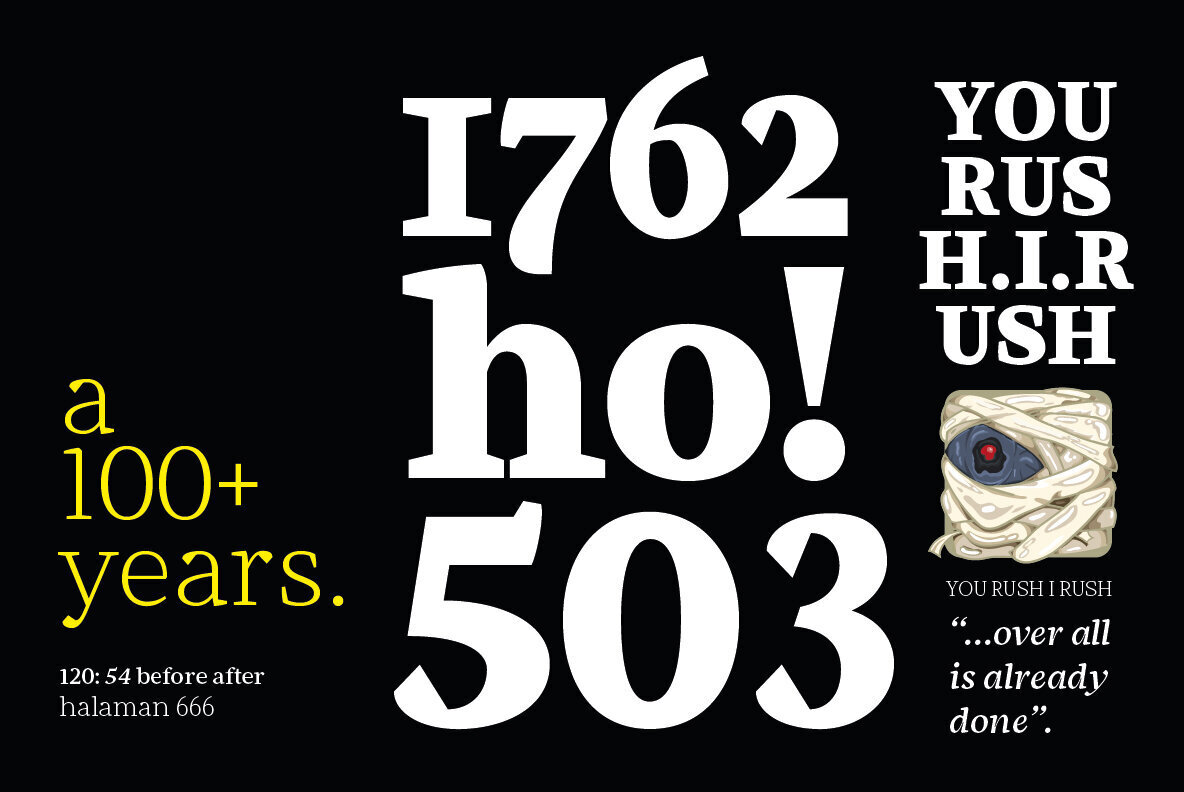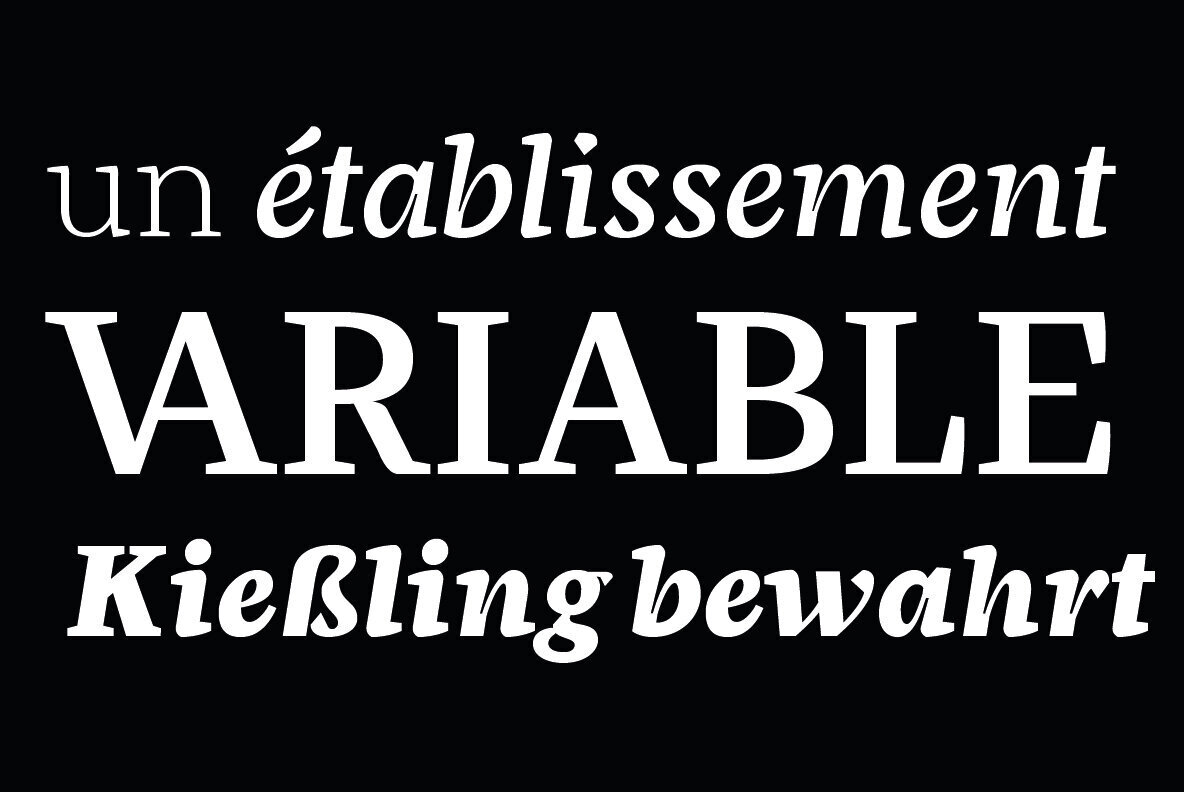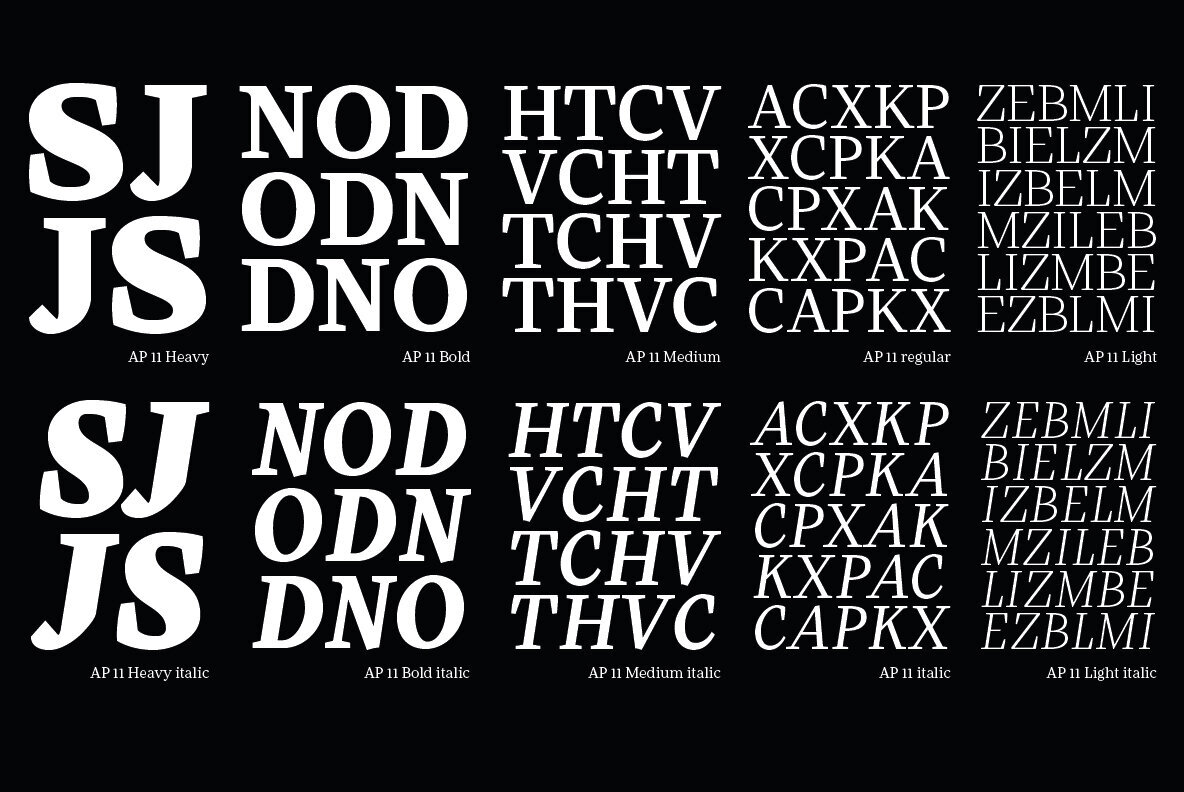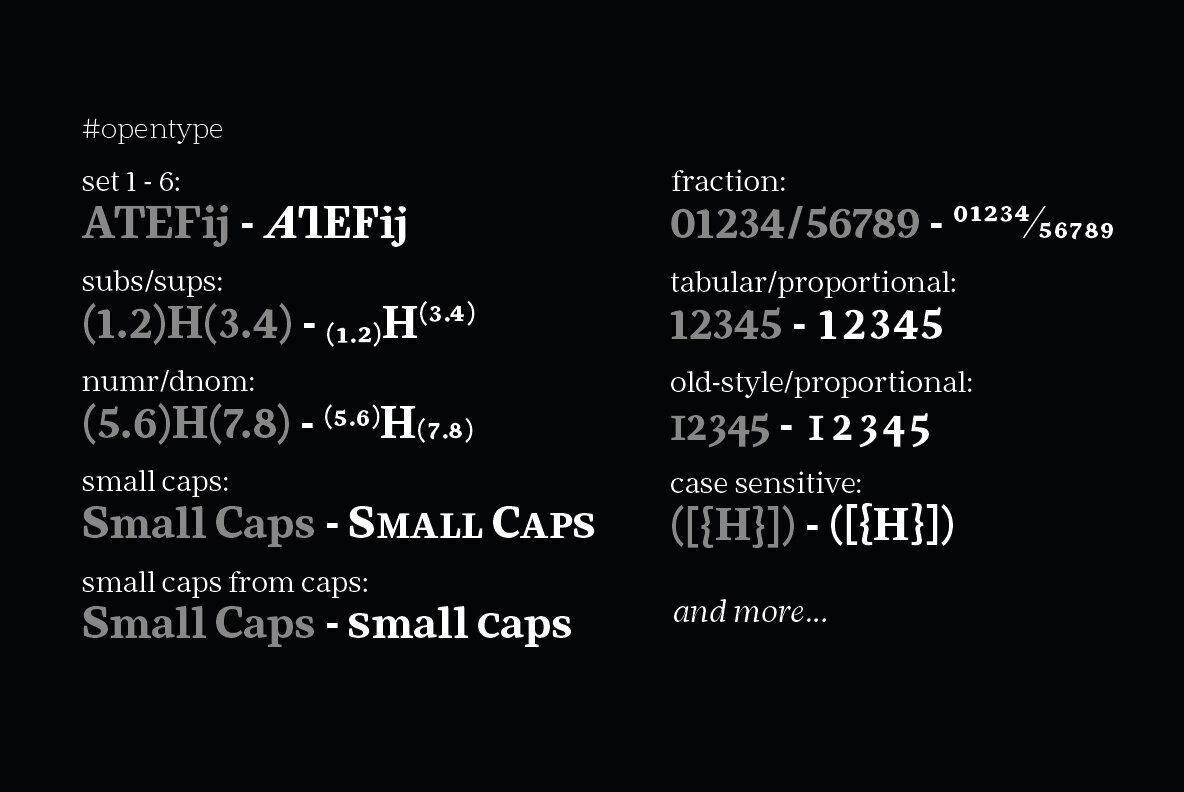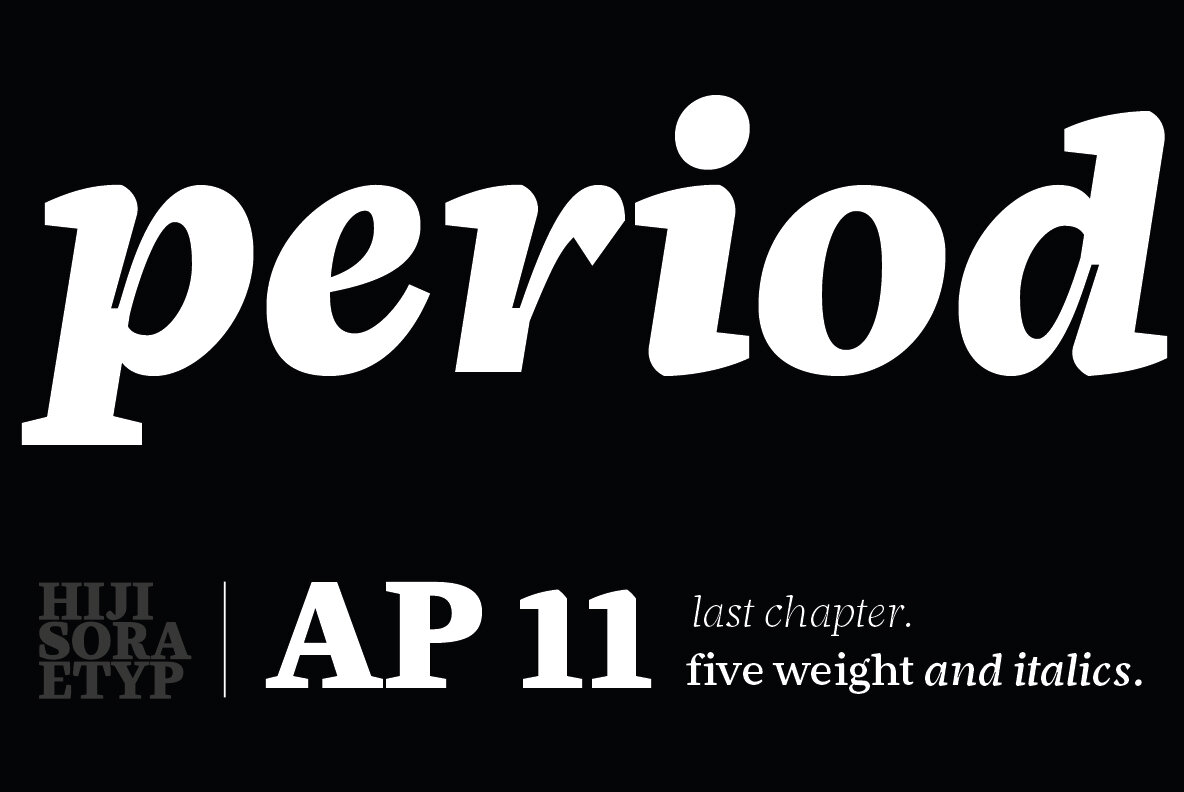
AP 11 Font
The AP 11 is designed with a mix of modern and classical serifs, intended to create the perfect balance between style versus readability. This typeface has five weights each in regular or italics which have rough edges similar to those on older letterpress prints while still maintaining professional font quality.